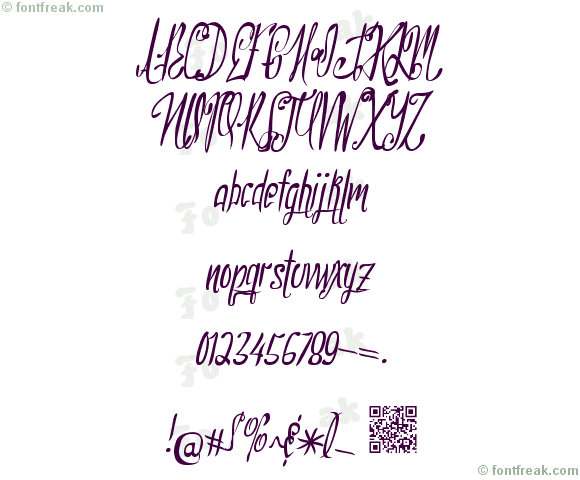
NorthernMontgomery
NorthernMontgomery, created by XEROGRAPHER FONTS in 2015, is a beautifully crafted script font that embodies elegance and sophistication. This handwritten-style typeface features fluid strokes and a whimsical flair, making it a perfect choice for projects that require a personal touch. The font exhibits moderate stroke weight with a balanced contrast that enhances its legibility while maintaining an artistic appeal. The generous spacing between the letters contributes to its airy and open feel, allowing it to stand out effectively in various design contexts.
This font is particularly well-suited for wedding invitations, where its romantic style can set the tone for special occasions. Additionally, it works wonderfully for greeting cards, bringing warmth and charm to heartfelt messages. NorthernMontgomery is also a fantastic choice for branding elements, such as logos for boutique shops or artisanal products, as it conveys a sense of uniqueness and creativity. Graphic designers will find it ideal for creating engaging social media graphics that capture attention and communicate a brand’s personality. Moreover, it can add a stylish touch to restaurant menus, especially for establishments looking to create an inviting atmosphere.
What sets the NorthernMontgomery font apart is its ability to blend elegance with a casual, handwritten feel, making it suitable for both formal and informal applications. This unique combination allows it to resonate with a broad audience, ensuring that your designs capture attention and leave a lasting impression. Don’t miss the opportunity to explore the NorthernMontgomery font free download and elevate your creative projects today.